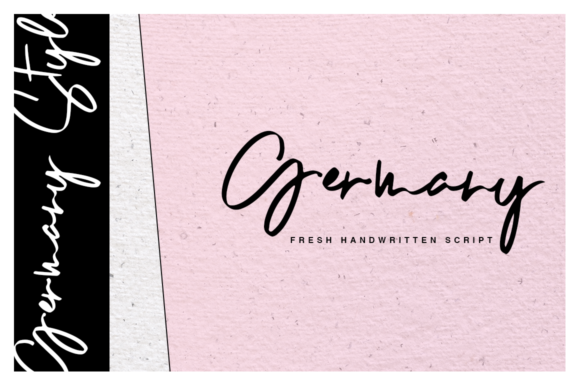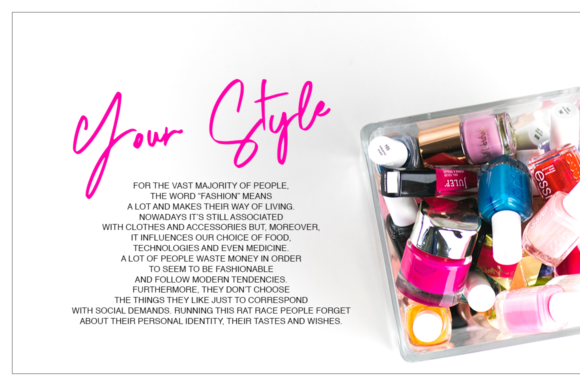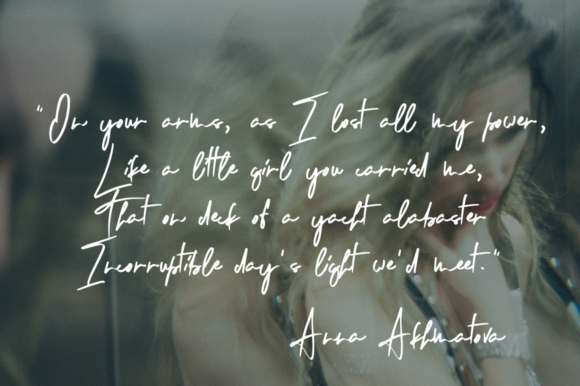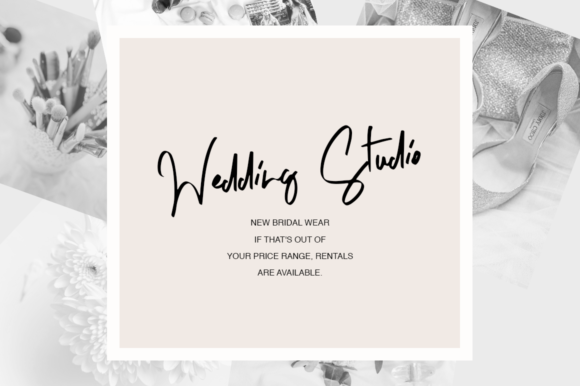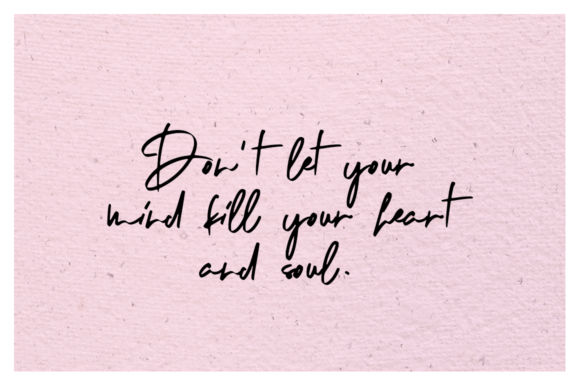
Germany Font
About Germany Font
Germany is an incredibly light and delicate handwritten font with a sophisticated feel. Fall in love with its timeless appeal.